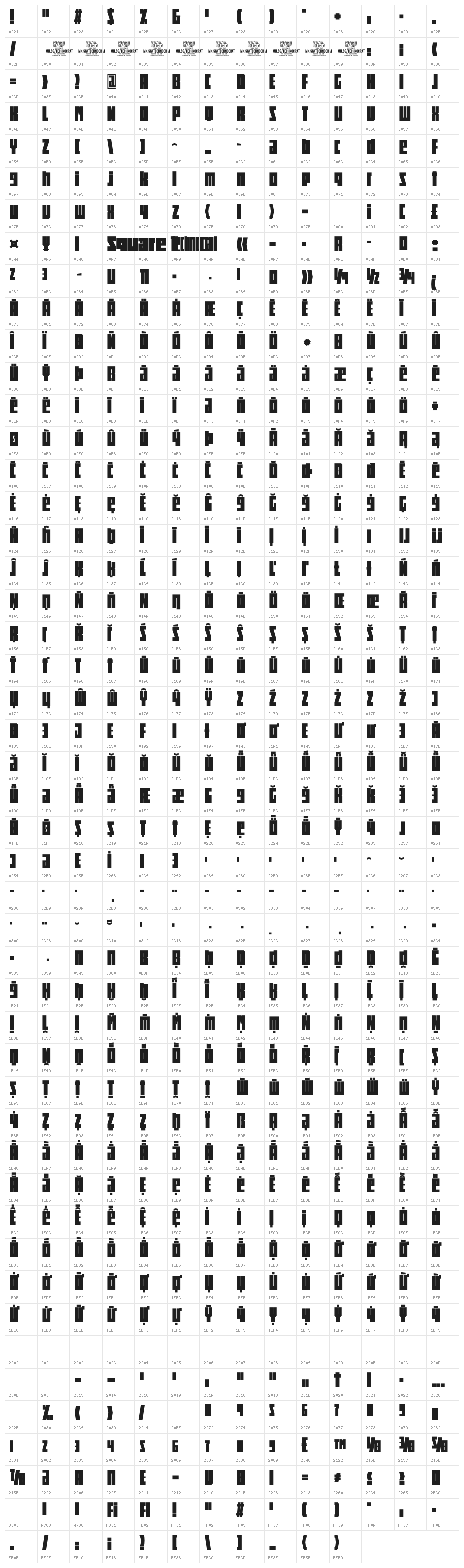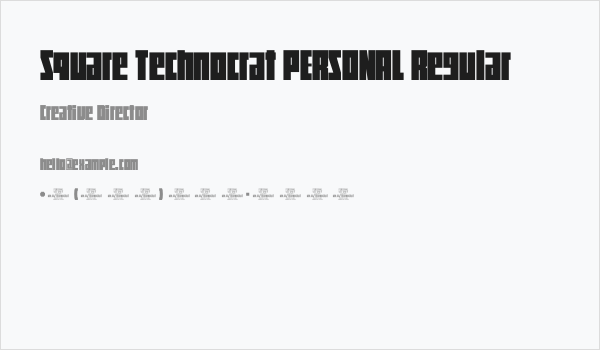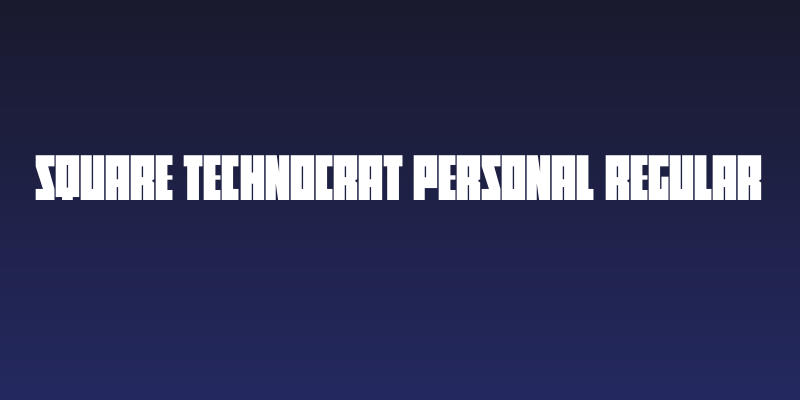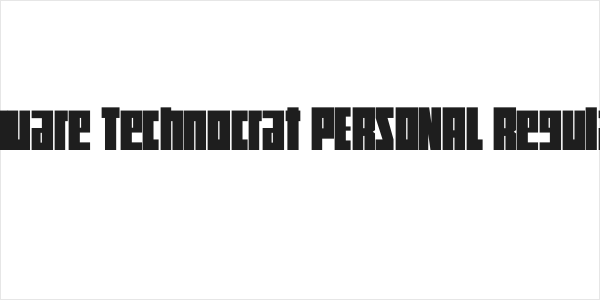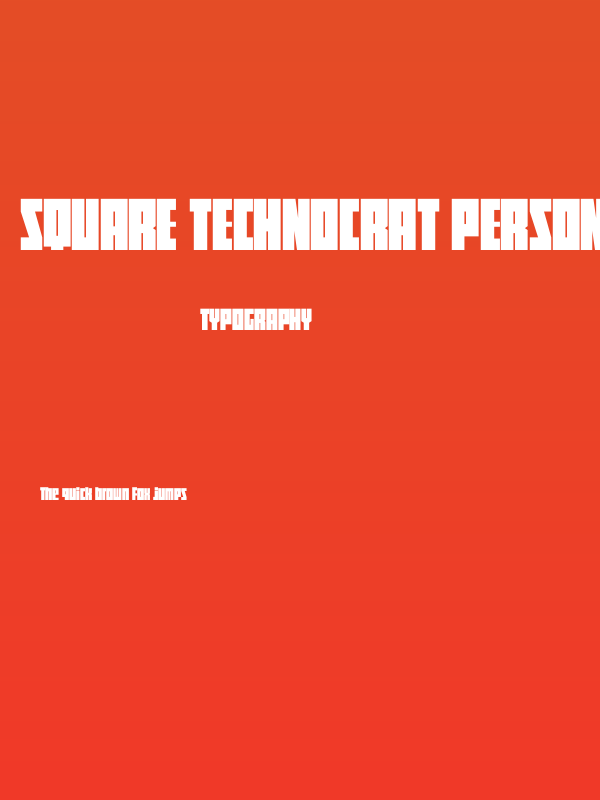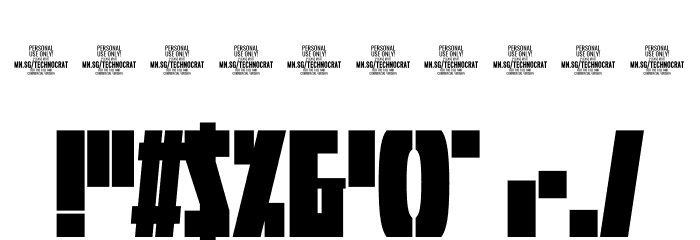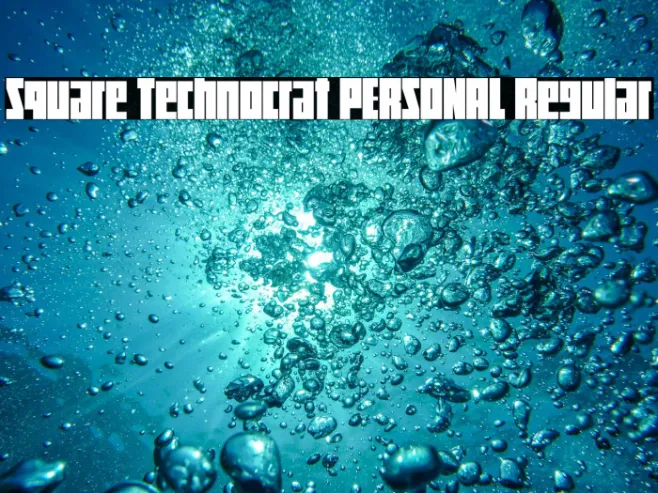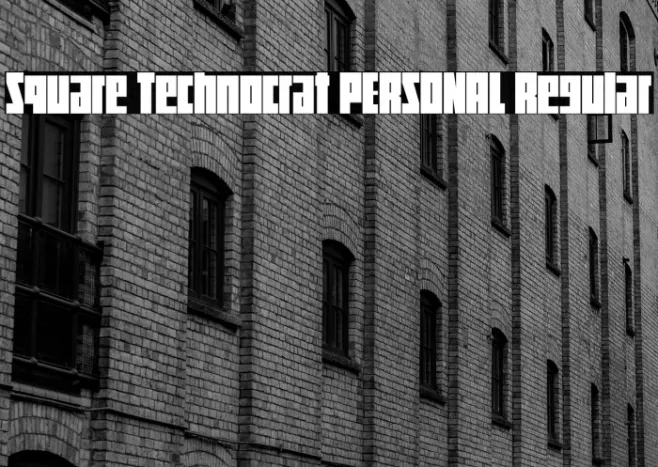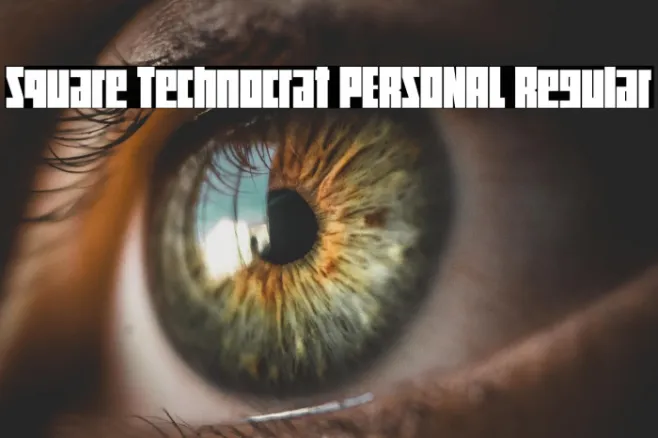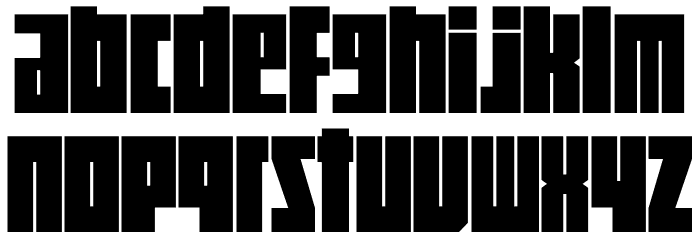
Square Technocrat PERSONAL Regular Font
Square Technocrat PERSONAL Regular Description
This font features a bold, geometric design with a strong emphasis on square shapes and sharp angles. The characters are uniformly wide, creating a blocky and robust appearance. The uppercase and lowercase letters maintain a consistent height, contributing to a cohesive and structured look. The numerals and special characters follow the same bold and angular style, ensuring visual harmony across all elements. This font's distinct and modern aesthetic makes it ideal for projects that require a strong visual impact.
| Proposed Projects | Ideal for technology branding, futuristic posters, video game titles, and any project needing a strong, modern aesthetic. |